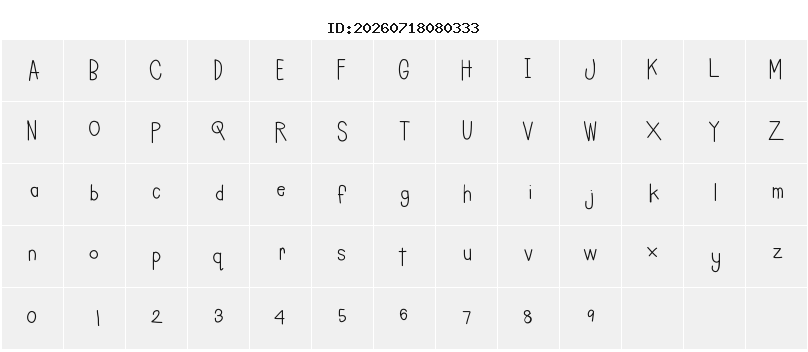
CharleesInAHurry Preview
• Font Name: CharleesInAHurry
• Full Font Name: CharleesInAHurry
• PostScript Name: CharleesInAHurry
• Character Count: 97
About CharleesInAHurry.ttf
CharleesInAHurry.ttf is a modern, elegant sans-serif font designed for ultimate readability and visual harmony. Perfect for branding, headlines, web design, and print materials.